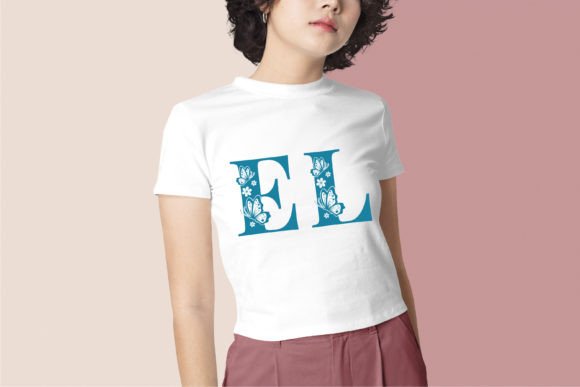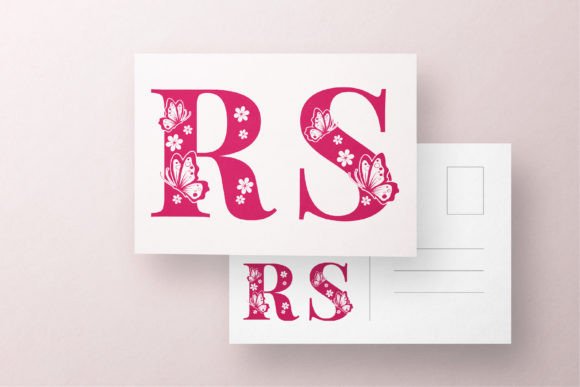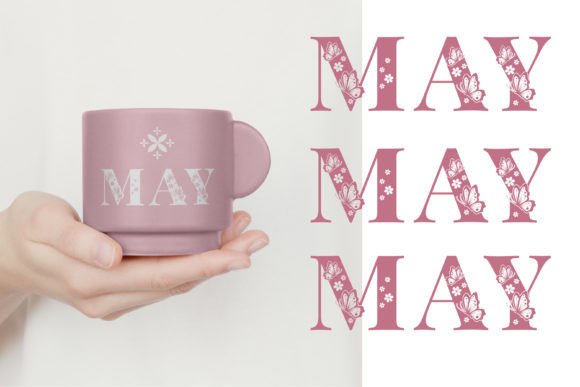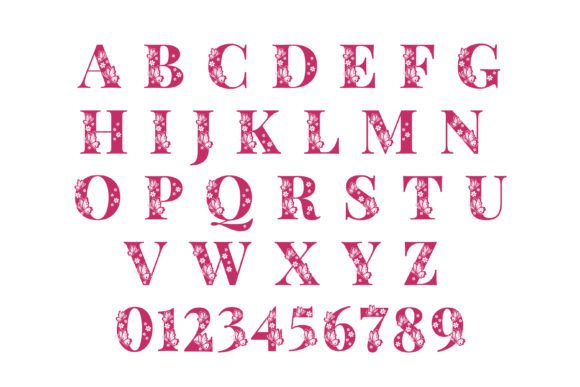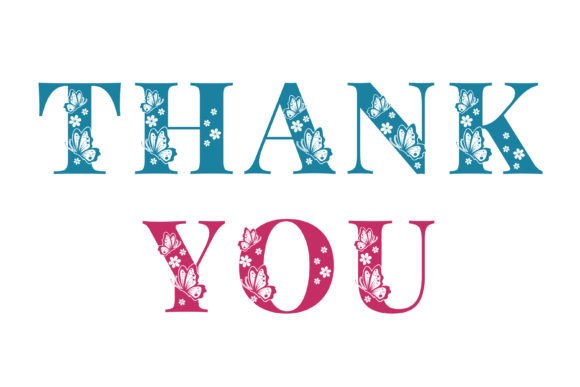
The Magical World of Butterfly Inside Font
I’ll never forget the moment I stumbled upon the Butterfly Inside font. I was working on a project for a client who wanted an elegant and whimsical touch for their stationery art. I had spent hours scouring the internet for the perfect font, but nothing seemed quite right. That was until I discovered Butterfly Inside – an exquisite decorative font that instantly captured my heart. In this article, I’ll share my experience with this beautiful font, its features, and how to make the most of it in your designs.
A Personal Review of Butterfly Inside Font
• ✨ Elegant and sophisticated design, perfect for creating stunning stationery art, social media posts, and greeting cards.
• ✅ Lovely ornaments and authentic feel that add a touch of whimsy to any design.
• 💫 Excellent for projects that require a bit of flair and personality.
While Butterfly Inside is an amazing font, there are a few things to keep in mind:
• ⚠️ Some users may find the font a bit tricky to pair with other fonts, so experimentation is key.
• 🤔 The font’s ornate features might not be suitable for very small text sizes or body text.
The Story Behind Butterfly Inside Font
Butterfly Inside was designed by a talented typographer who wanted to create a font that captured the essence of elegance and whimsy. Inspired by the beauty of nature and the delicate patterns of butterflies, this font was born. With its lovely ornaments and authentic feel, Butterfly Inside is perfect for designers, crafters, and creative hobbyists who want to add a touch of magic to their designs.